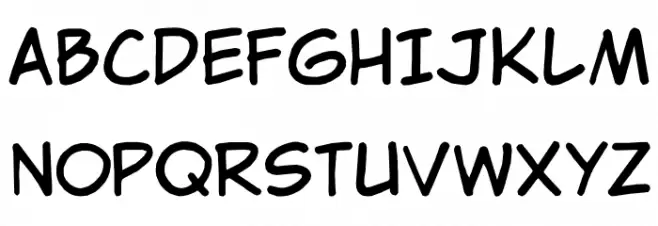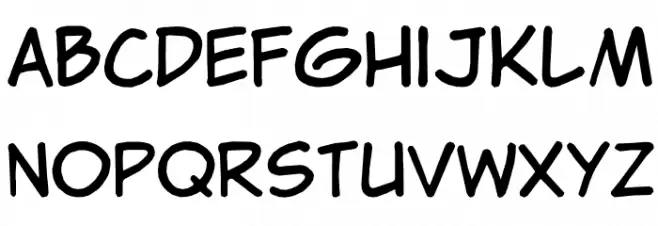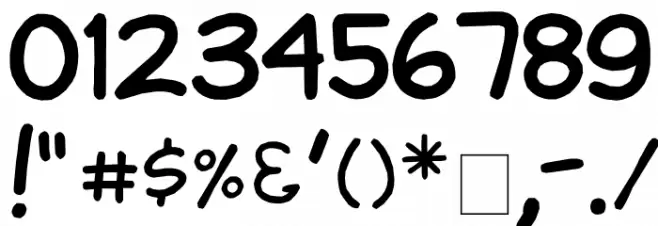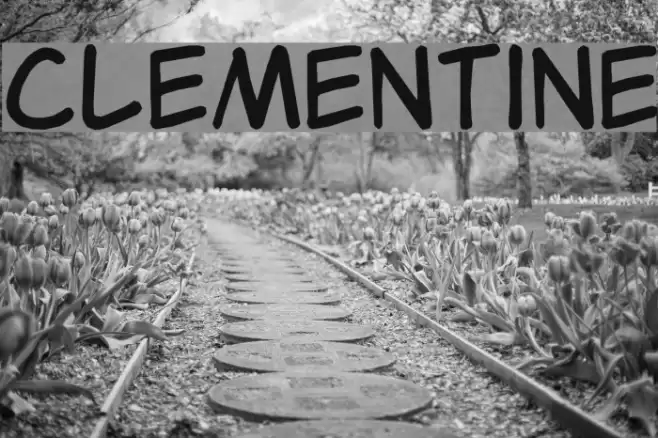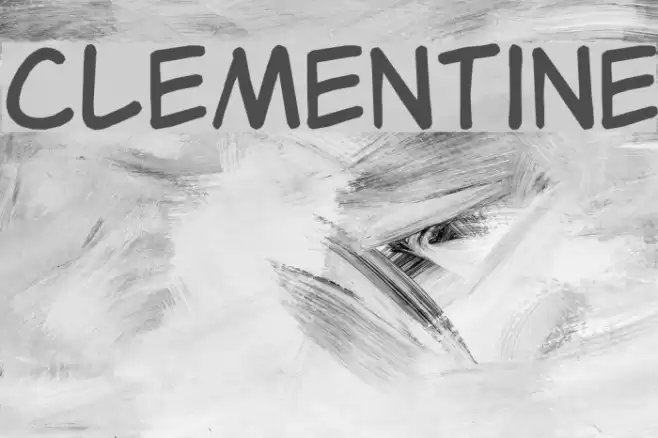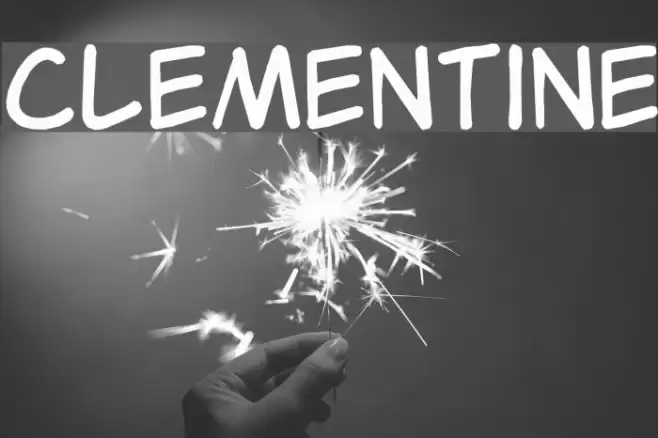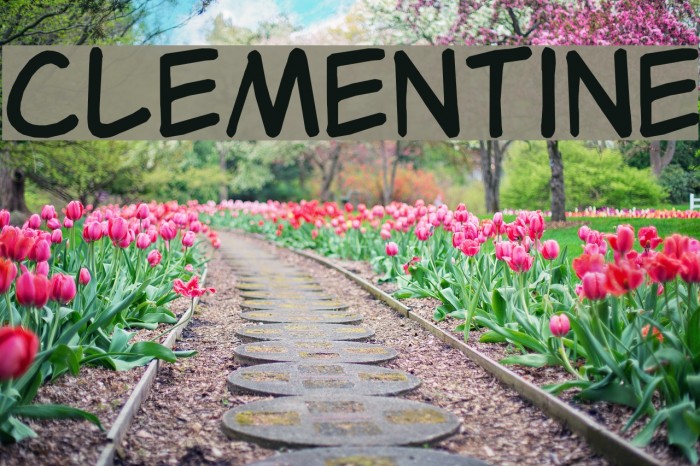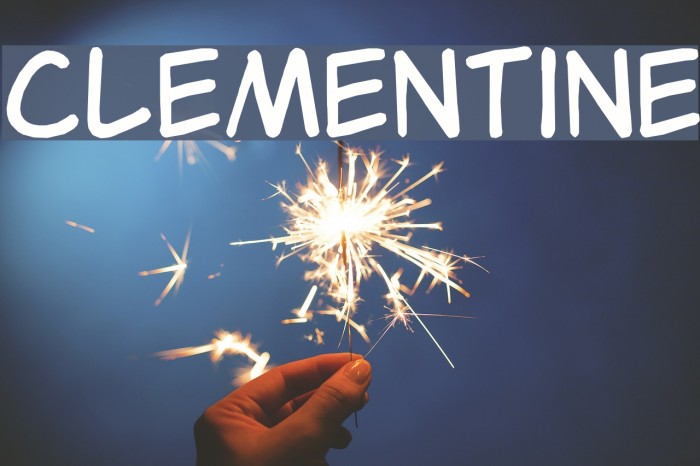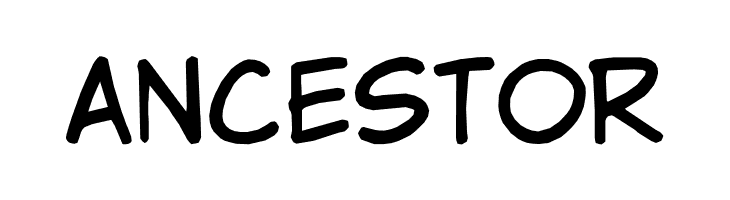
Clementine
This font features a playful and informal style, characterized by its handwritten appearance. The letters are slightly slanted, giving it a casual and friendly vibe. The strokes are consistent in thickness, providing a uniform look across all characters. The rounded edges and smooth curves enhance its approachable feel, making it suitable for projects that require a personal touch. The numerals and special characters maintain the same playful aesthetic, ensuring cohesion throughout any text. This font is versatile, offering both uppercase and lowercase letters that blend seamlessly together.
A playful, handwritten-style font with consistent strokes and rounded edges.
- Proposed Projects: Ideal for greeting cards, children's books, informal invitations, and playful branding.
- Overall Style: Casual
- Use Case: Headlines, Logos, Informal Text